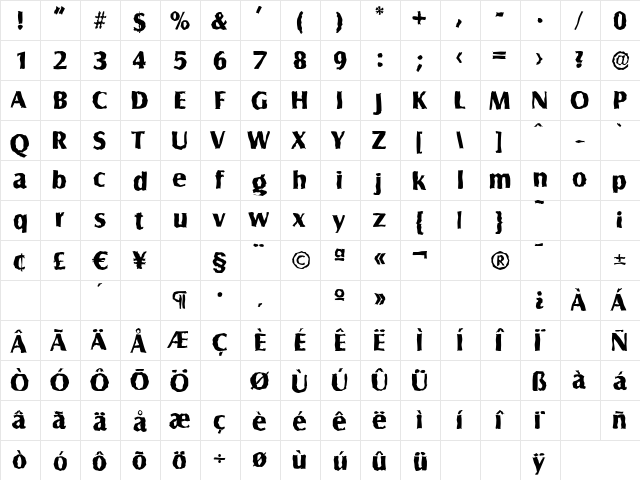
SalzburgRandom-Xbold Regular
Design Context for SalzburgRandom-Xbold Typeface
SalzburgRandom-Xbold is a composed and adaptable typeface that performs quietly and consistently across a wide range of design contexts. Its bold stroke weight gives it real presence on the page.